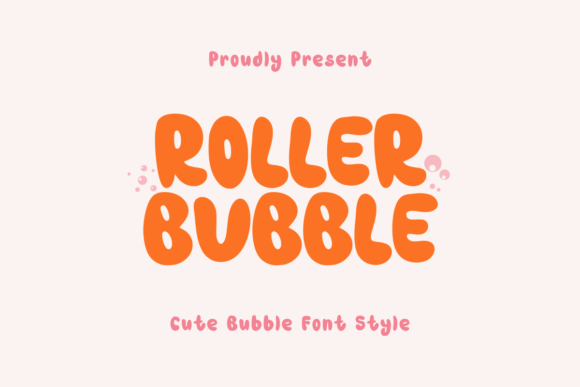
Introducing Roller Bubble Font, the ultimate choice for anyone seeking the best font for kids logo designs. Created by the talented Nadiratype, this fun and cute display font is set to elevate your projects and captivate your audience like never before.
Roller Bubble Font is not just your ordinary font. It is a delightful blend of creativity and playfulness, designed specifically to bring a touch of joy to any design. With its eye-catching appeal, this font is a must-have for anyone looking to create captivating and memorable logos for kids-related businesses, products, or services.
Crafted with utmost care and precision, Roller Bubble Font is the perfect choice for a wide range of applications. Whether you're working on a crafting project, digital designing, creating presentations, or even making delightful greeting cards, this font will certainly add a charming and whimsical touch to your work.
Imagine the smiles and excitement that Roller Bubble Font will spark in children and adults alike. Its unique and playful design instantly captures attention, making it an ideal choice for any project targeting a young and vibrant audience. From toy stores and children's clothing brands to educational apps and entertainment websites, Roller Bubble Font will effortlessly convey the fun and energetic essence of your brand.
With its versatility, Roller Bubble Font allows you to unleash your creativity and explore endless design possibilities. Let your imagination run wild as you experiment with different colors, sizes, and arrangements. Whether you want to create a bold and energetic logo or a cute and charming headline, this font will bring your vision to life with its captivating charm.
But Roller Bubble Font isn't just about aesthetics. It is also a powerful marketing tool. By using this font, you instantly evoke a sense of nostalgia, reminding your audience of the carefree and joyful moments of childhood. This emotional connection will establish a strong bond between your brand and your target audience, increasing brand recognition and customer loyalty.